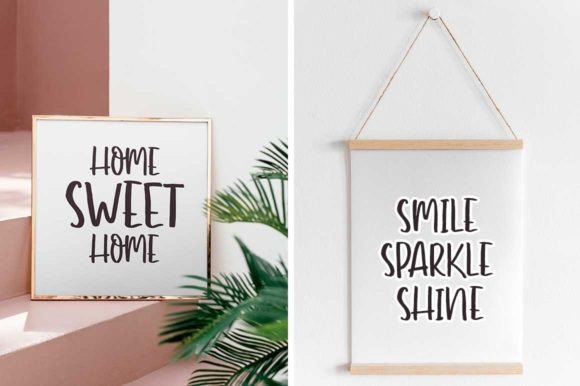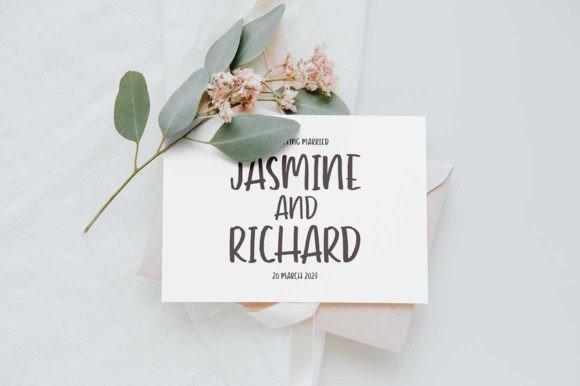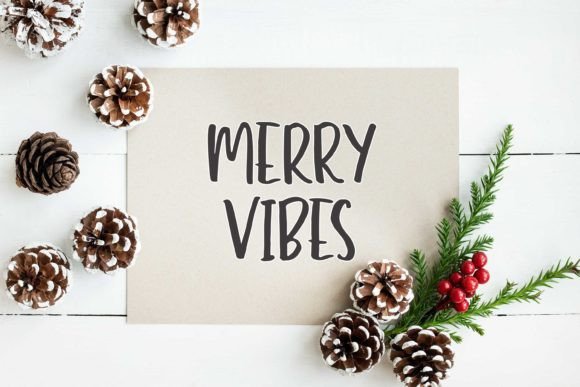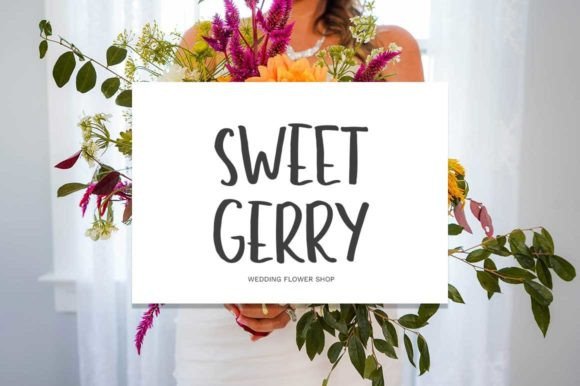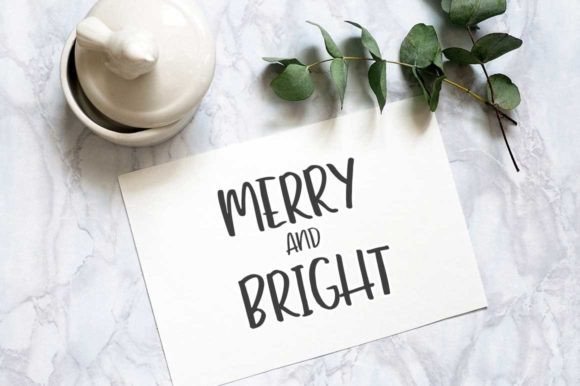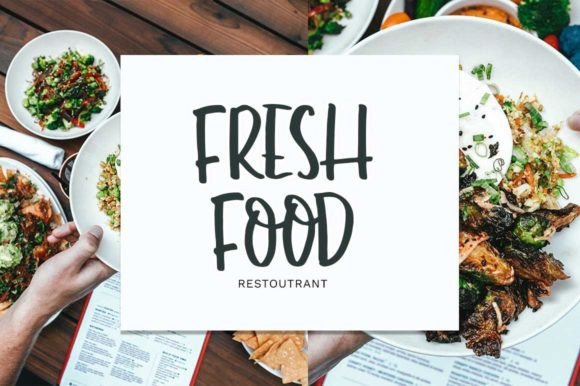
Discover the Magic of Berry Garden Font
As a designer, there’s nothing quite like the thrill of bringing a creative vision to life. Maybe it’s a late-night brainstorming session, surrounded by scribbled notes and half-finished sketches, or a moment of pure inspiration that strikes at the perfect moment. Whatever the spark, it’s that feeling that drives us to create something truly special. And for many designers, that something special is the perfect font.
Enter Berry Garden Font, the latest addition to the world of digital design. This beautiful handwritten font is the perfect choice for anyone looking to add a touch of whimsy and personality to their projects. Whether you’re crafting a presentation, designing a greeting card, or working on a digital design project, Berry Garden Font is the perfect companion. Its unique charm and character make it a valuable asset for any designer looking to elevate their work and stand out from the crowd.
Berry Garden Font Key Features
- Font Family: Berry Garden Font is a beautiful, handwritten script font.
- Unique Characteristics: Features a unique, hand-painted aesthetic with subtle brushstrokes and imperfections, adding a touch of personality to any design.
Berry Garden Font Review
Overall, I think the Berry Garden Font is a charming addition to any design project. Here are some of its strengths:
- ✨ Whimsical and playful feel that’s perfect for illustrations, labels, and branding for children’s products or garden-related businesses.
- ✨ The use of rounded edges and subtle flourishes creates a friendly, approachable atmosphere.
- ✨ The font’s size and line spacing work well together to create a visually appealing composition.
- ⚠️ The font may not be the best choice for professional or formal settings, as its playfulness might come across as unprofessional.
- ⚠️ The font’s character set is limited, which might be a concern if you need to display text in multiple languages.
- ⚠️ Some users may find the font’s irregularities in letter spacing or sizing inconsistent.
Overall, I think the Berry Garden Font is a lovely choice for designs that require a playful, garden-inspired aesthetic. While it may not be suitable for every project, it’s a great addition to any designer’s toolkit.
For the best results, use the Berry Garden Font for projects that require a whimsical and playful feel, such as:
– Children’s book illustrations
– Event invitations
– Branding materials